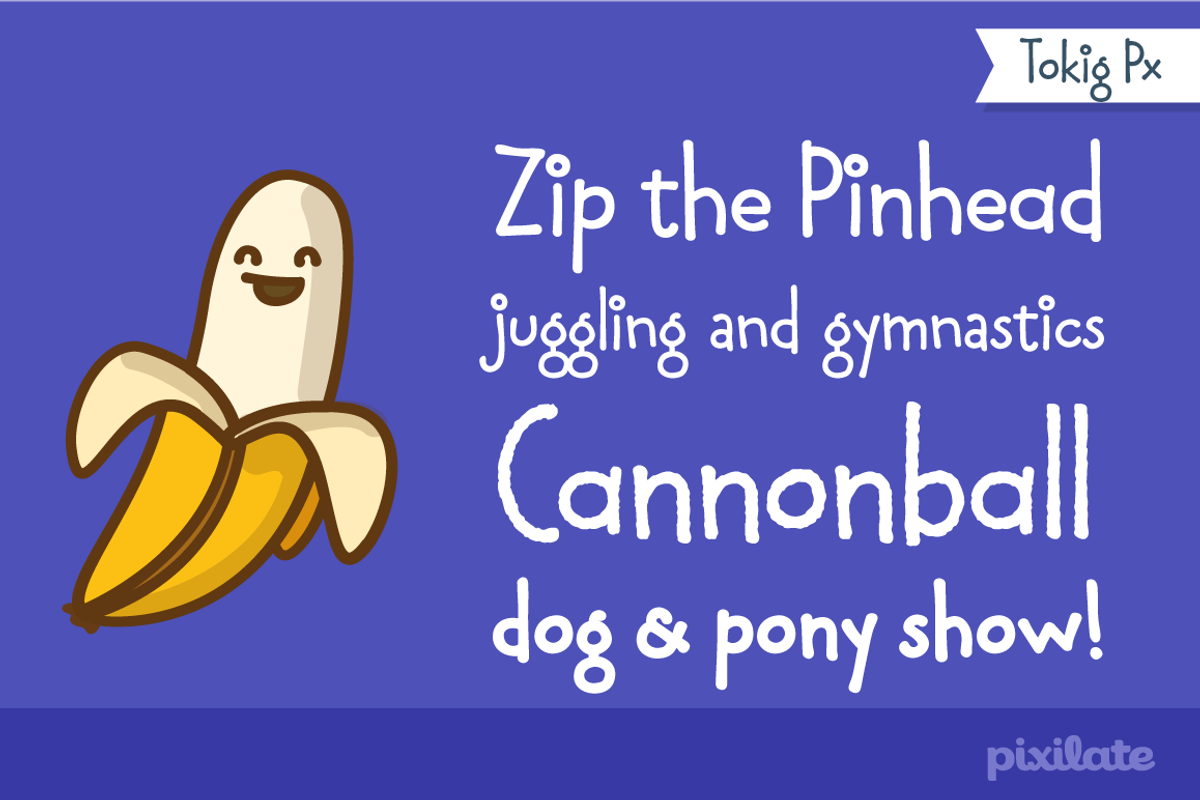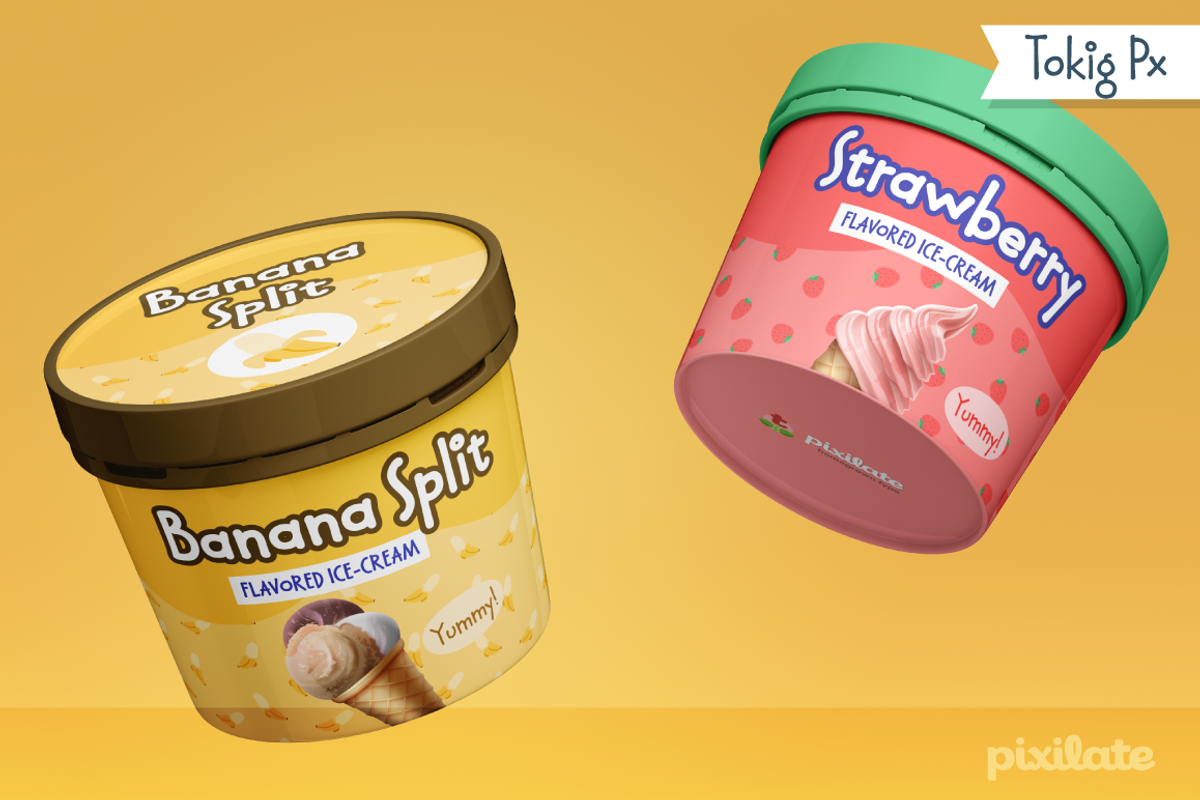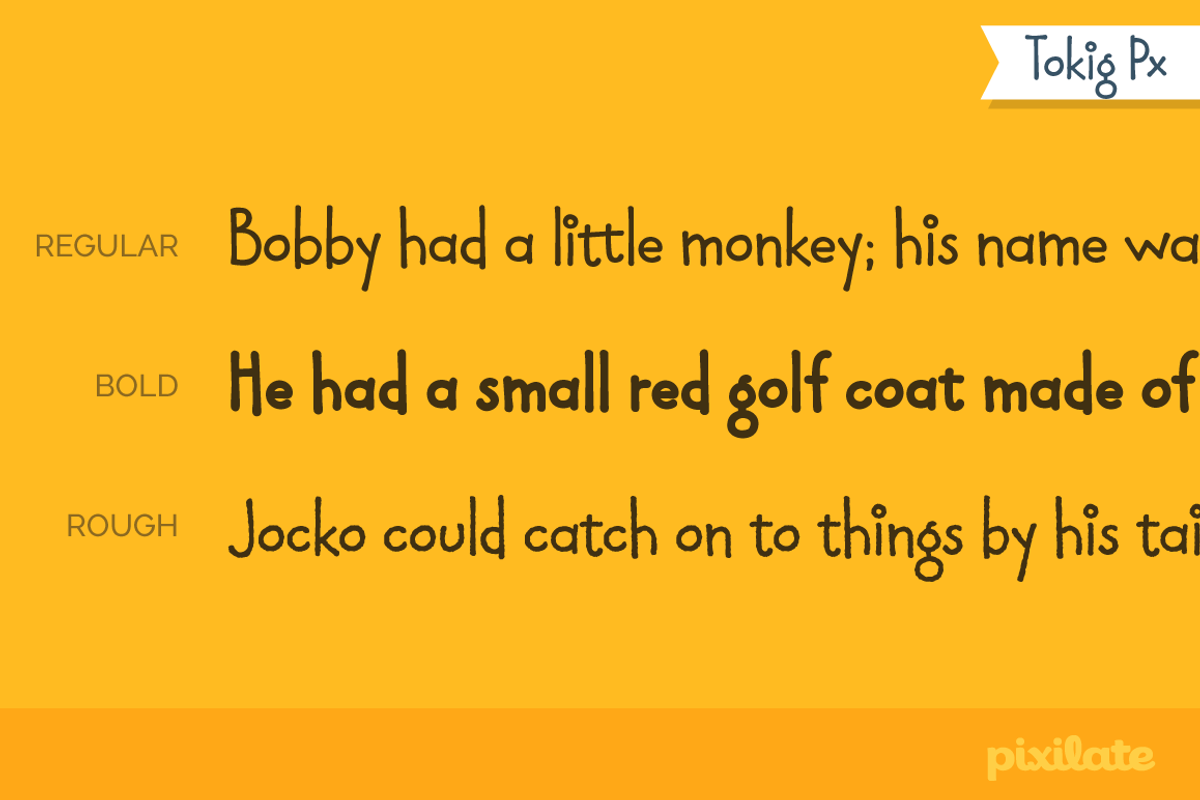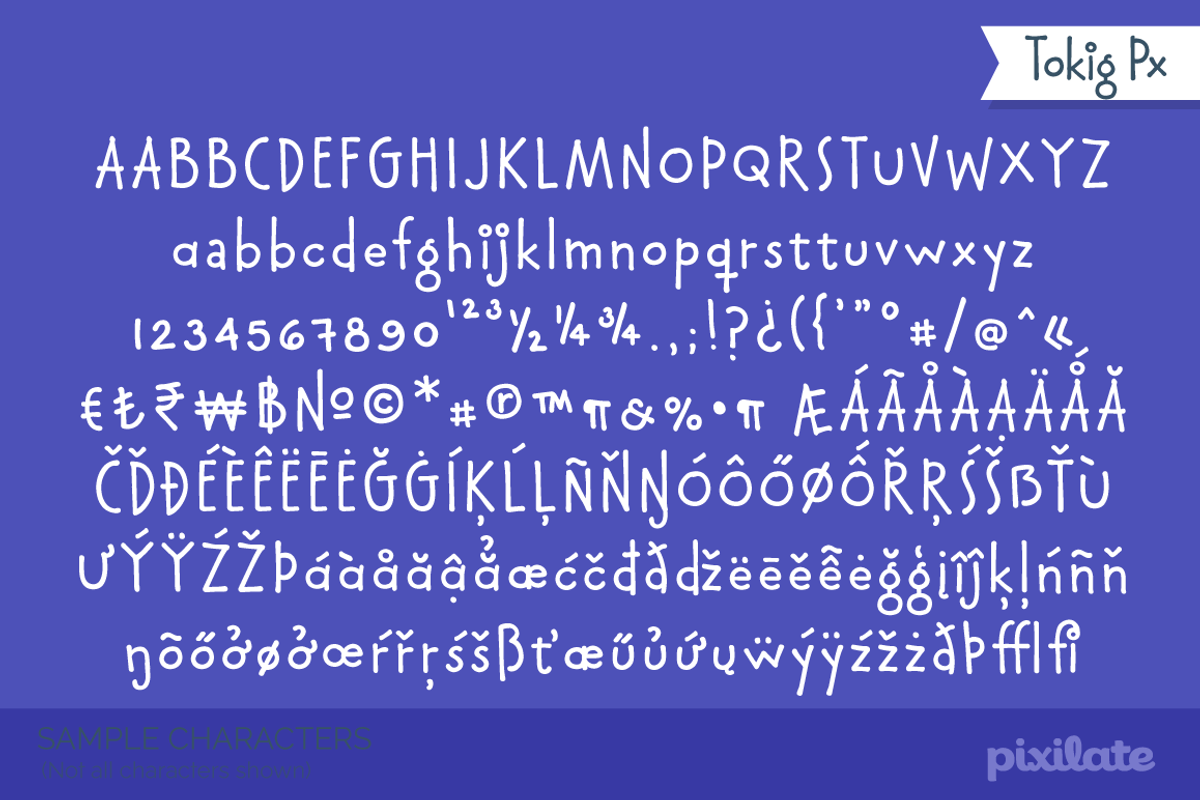
Tokig Px font family
Tokig Px font family by Letradora is a font selected for branding, posters, packaging, typography.
- Tokig Px Regular
- Tokig Px Bold
- Tokig Px Rough
Why Tokig Px font family is worth a look
Tokig Px font family by Letradora fits naturally into Branding, posters, packaging, typography.